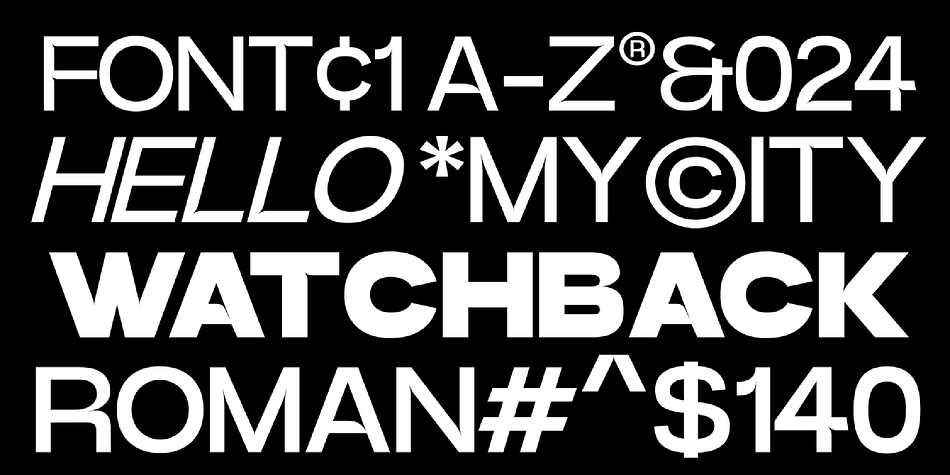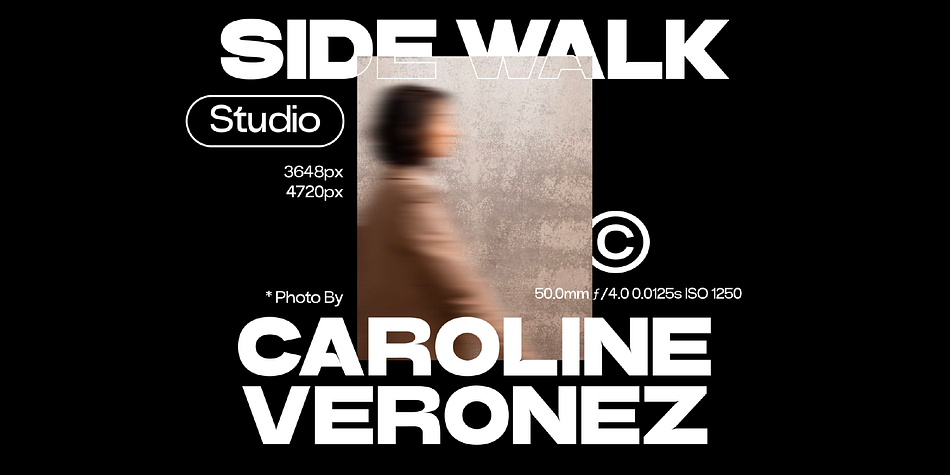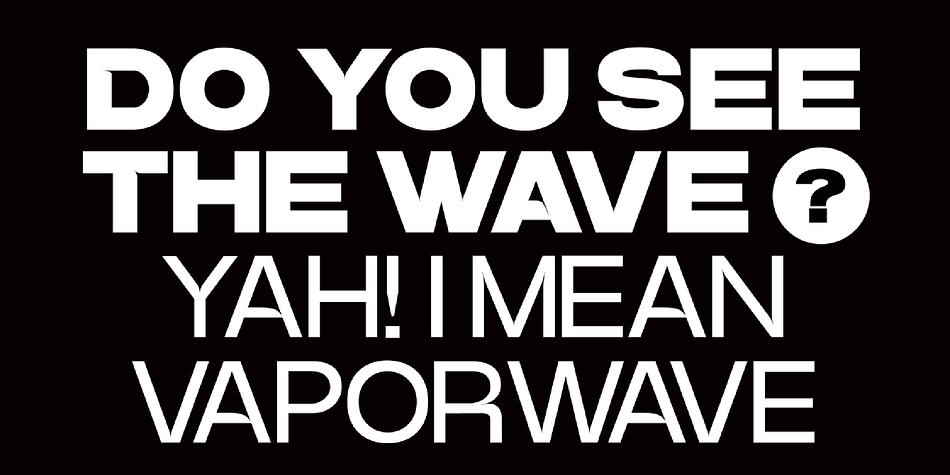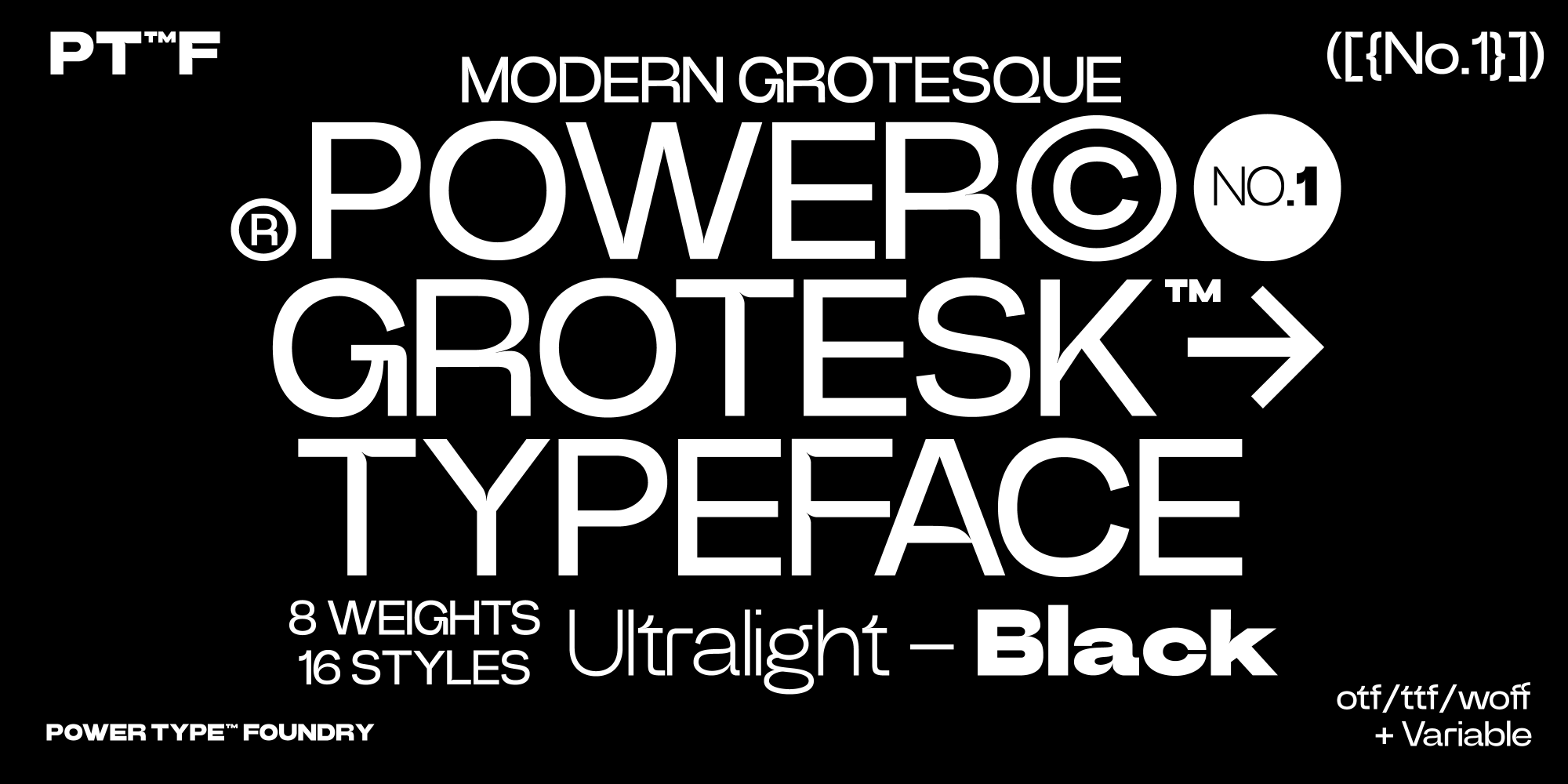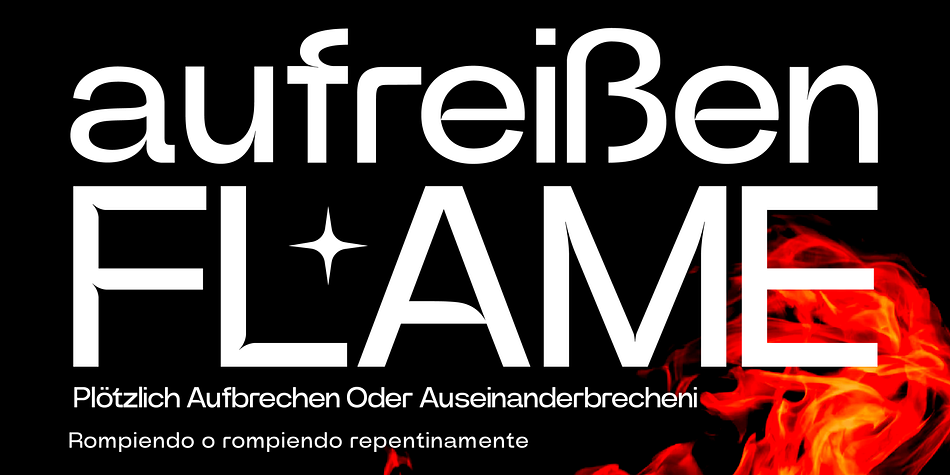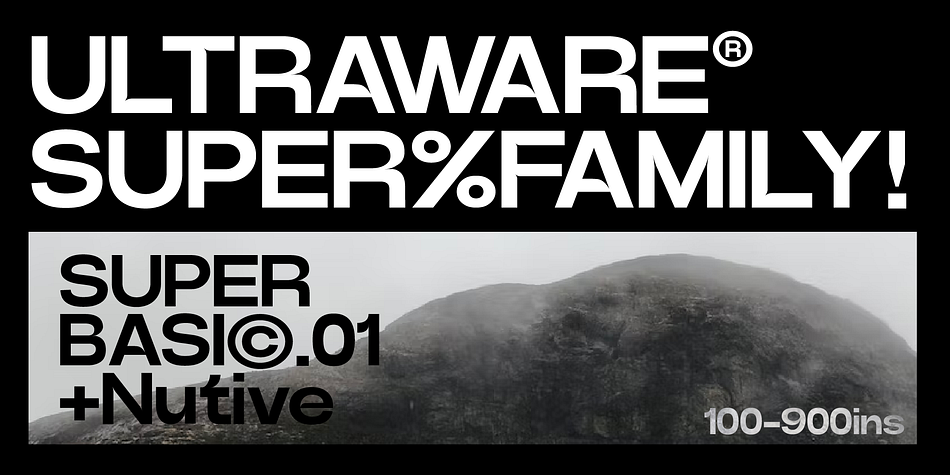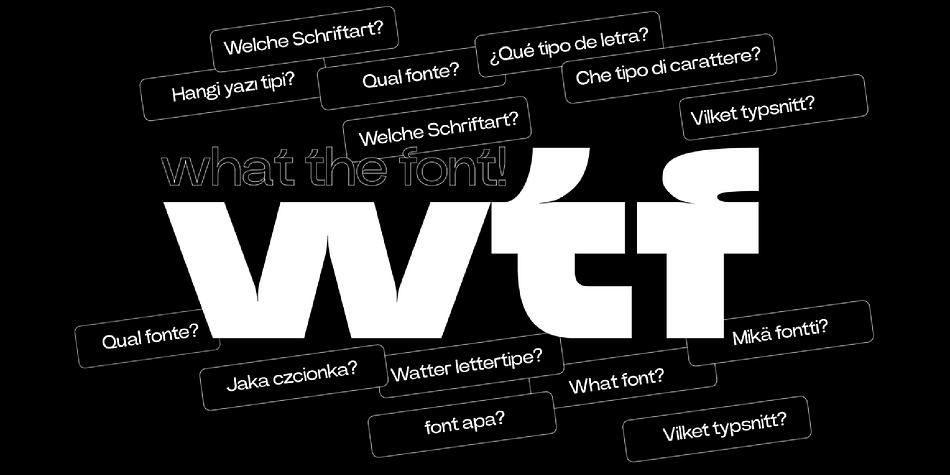
Power Grotesk
Designed by Teguh Arief, Power Grotesk is a sans serif font family. This typeface has sixteen styles and was published by Power Type Foundry.
Power Grotesk is a sans serif typeface with details that give typography that has its own characteristics from the thinnest to the thickest that is slightly widened. The goal is to create a typeface with legibility and good contrast between black and white so that it is suitable for different sizes. The typeface has a special feature that aids in reading and reproducing, trapping the right-sized ink for the text to work.
The geometric shapes and structures reflect the inspiration and influence of medieval typography. Power Grotesk moves between the vast historical material that makes up modern typography, combining contemporary details with classic styles.